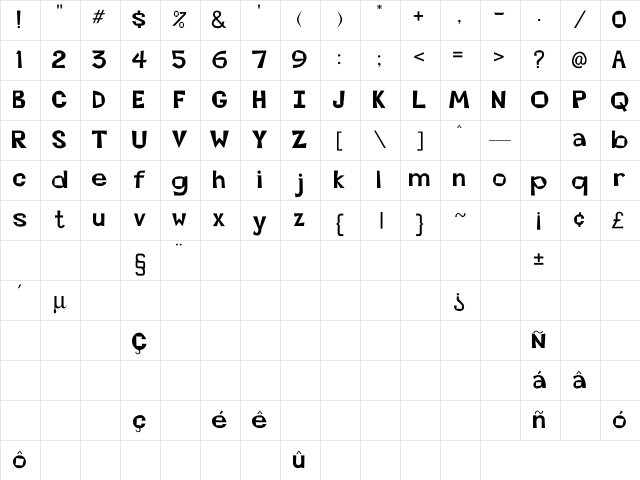
Beatsville Regu Regular
Design Context for Beatsville Regu
Beatsville Regu is a composed and adaptable typeface that performs quietly and consistently across a wide range of design contexts.
Pro Tip: Use Beatsville Regu in both headline and body roles to test its range before committing to a single application.